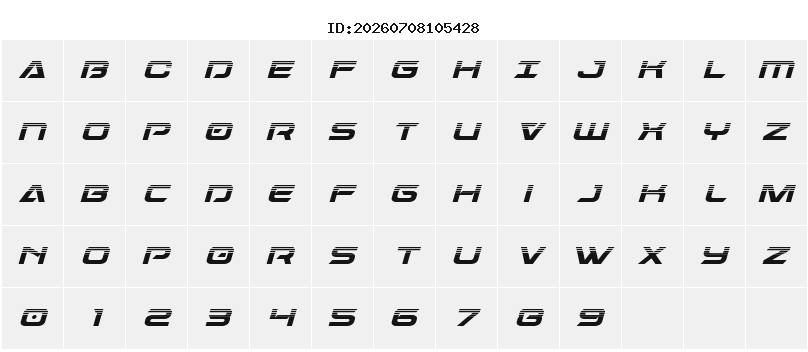
Dameron Halftone Italic Preview
• Font Name: Dameron Halftone Italic
• Full Font Name: Dameron Halftone Italic
About Dameron Halftone Italic.ttf
Dameron Halftone Italic.ttf is a modern, elegant sans-serif font designed for ultimate readability and visual harmony. Perfect for branding, headlines, web design, and print materials.